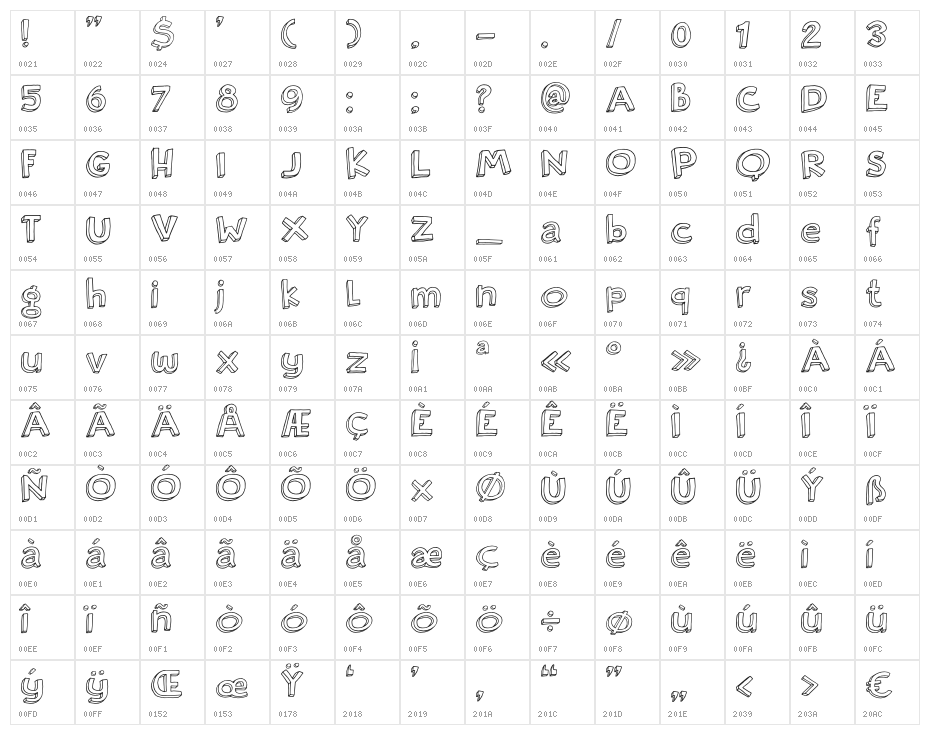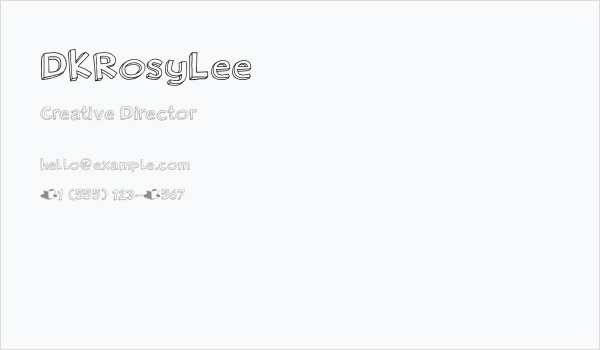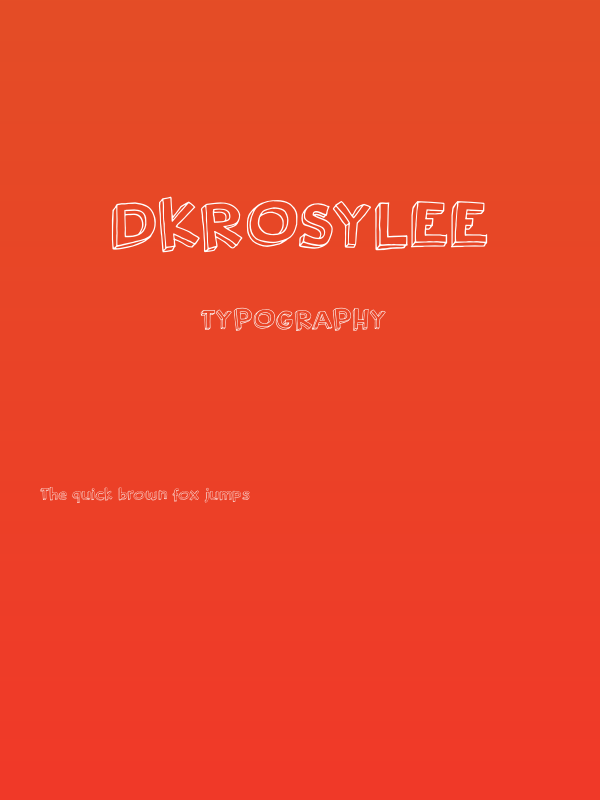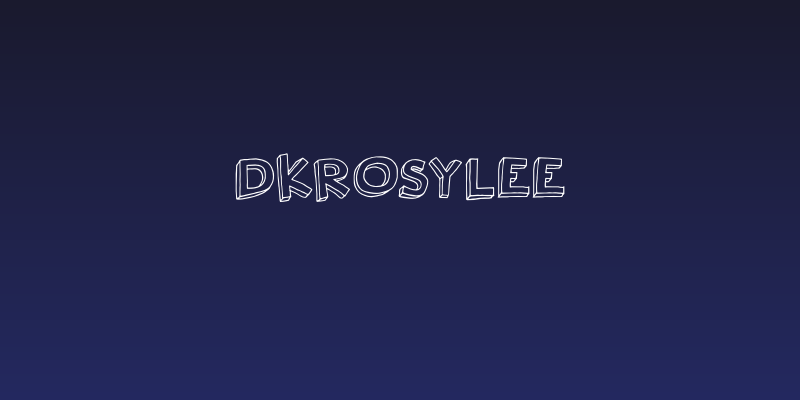
DKRosyLee Font
DKRosyLee Description
This playful and whimsical font features bold, hand-drawn characters with a unique outline style. Each letter is crafted with a sense of fun and creativity, making it stand out with its cartoonish appearance. The uppercase and lowercase letters maintain a consistent style, with rounded edges and a slightly irregular form that adds to its charm. Numbers and special characters follow the same design, ensuring a cohesive look across all text. The font's distinct personality makes it ideal for projects that require a touch of humor and lightheartedness.
Overall StyleWhimsical
Proposed ProjectsIdeal for children's books, comic strips, playful branding, and creative posters.